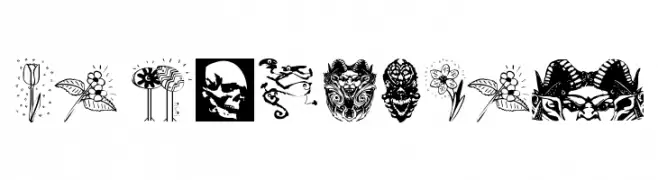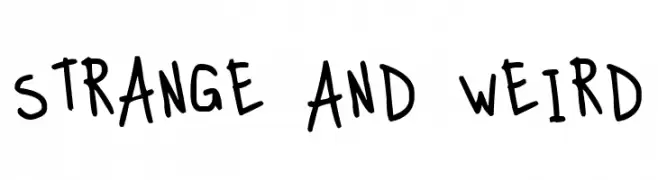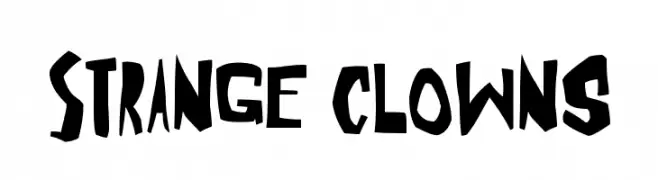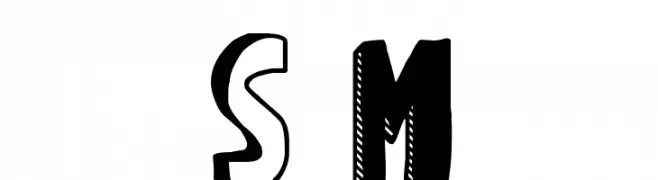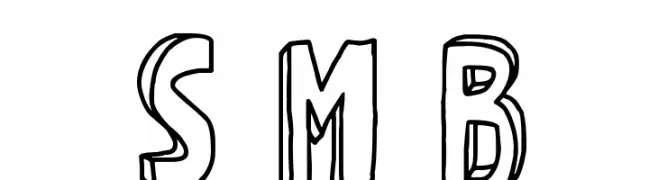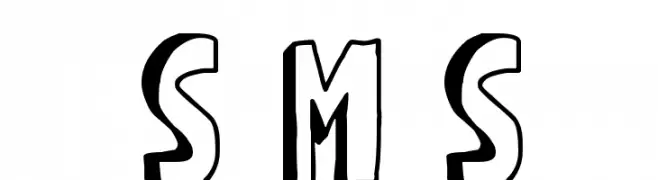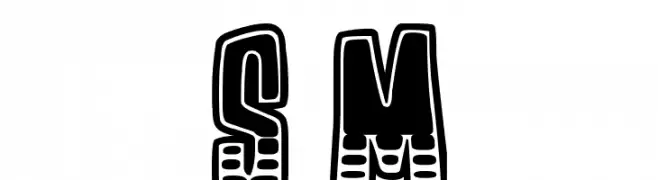
A bold, Gothic-inspired font with sharp, angular edges and a distressed look.
A bold, edgy font with a gothic, hand-drawn style.
Illustrative dingbat font with diverse, detailed graphics.
A playful, handwritten font with a quirky style.
A playful, whimsical font with irregular, bold letterforms and a hand-drawn feel.
A bold, hand-drawn font with playful, irregular characters and mixed patterns.
A playful, hand-drawn 3D font with bold outlines and a whimsical style.
A bold, playful font with a hand-drawn, shadowed style.
A bold, playful font with a three-dimensional, comic book style.
A bold, brush-stroke font with dynamic, hand-painted style.